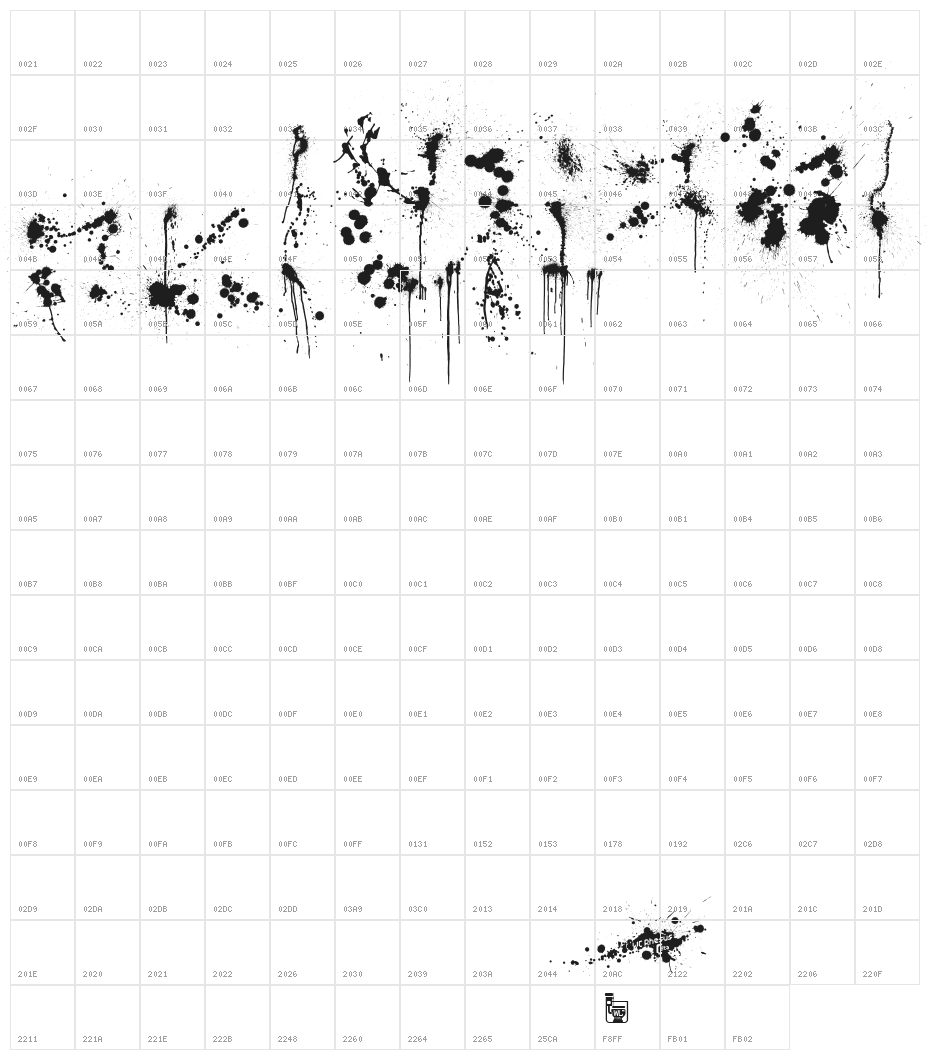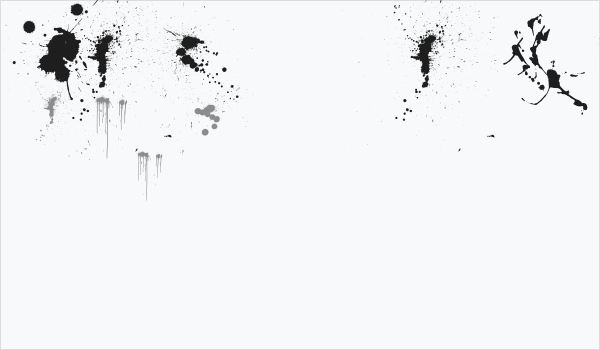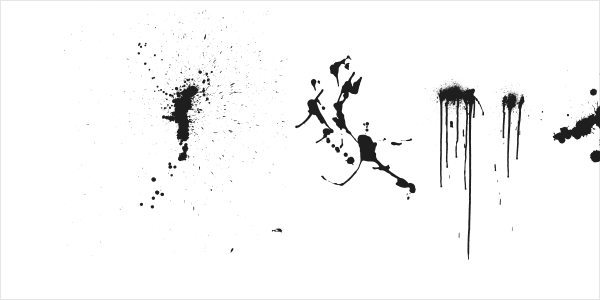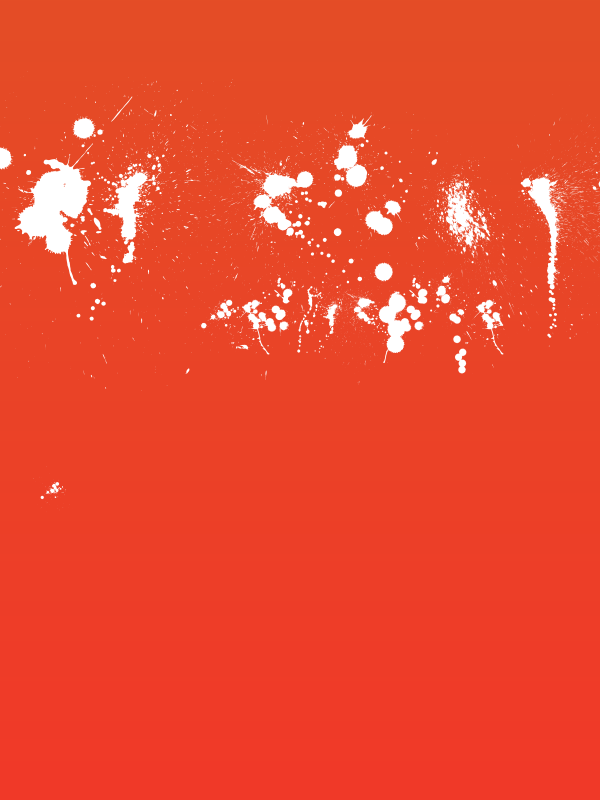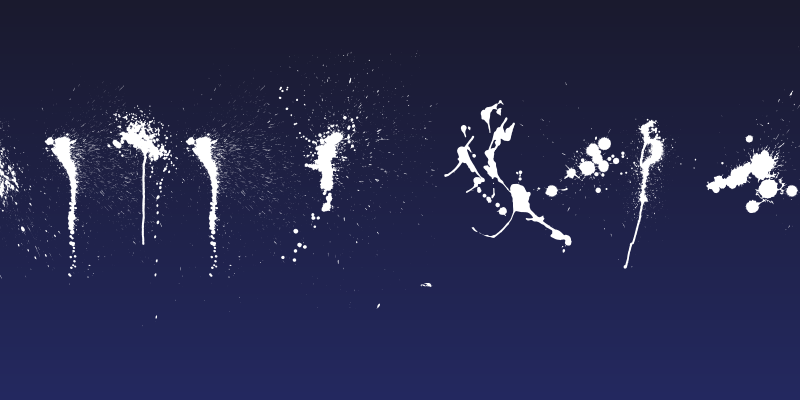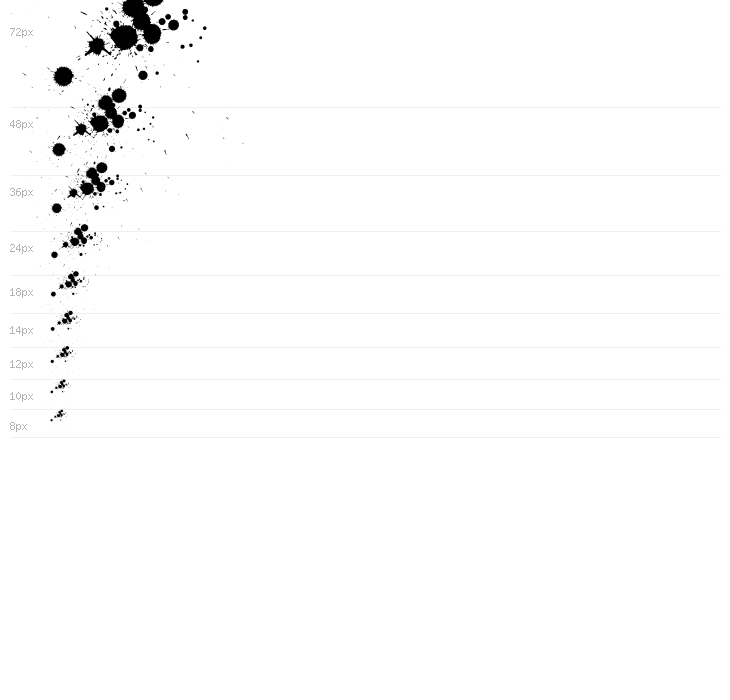
WC Rhesus C 2Bta Italic Font
WC Rhesus C 2Bta Italic Description
This font features a highly artistic and abstract design, resembling splatters of ink or paint. The characters are not clearly defined in a traditional sense, instead offering a unique and chaotic visual experience. The style is reminiscent of graffiti or street art, with each letter appearing as a spontaneous burst of creativity. This font is ideal for projects that require a bold statement or an unconventional aesthetic, as it defies the norms of typical typography. The overall appearance is dynamic and energetic, capturing attention with its unpredictable forms.
| Overall Style | Modern, Artistic |
| Use Case | Logos, Posters, Artistic projects |
| Proposed Projects | Ideal for street art-inspired designs, album covers, posters, and creative branding. |